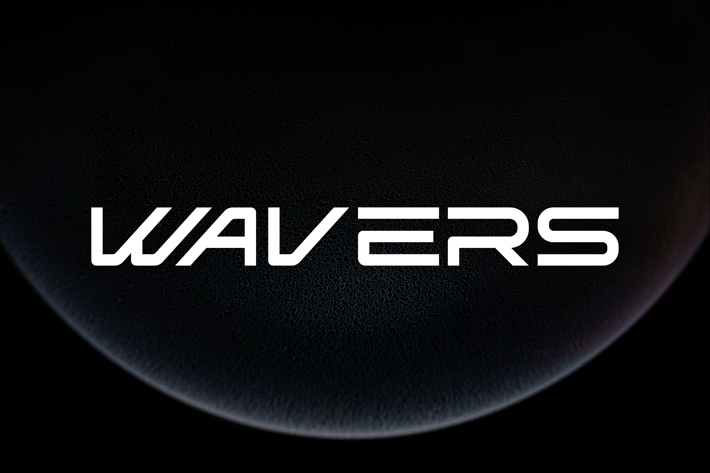
Wavers - Sansserif Techno Sport and Logo Font
Introducing our new product Wavers Font - Modern Font
Wavers Font- Modern Font is a bold and authentic display font. The font is suitable for any branding project like logo,
t-shirt printing, esport, and many more. outstanding in a wide range of contexts.